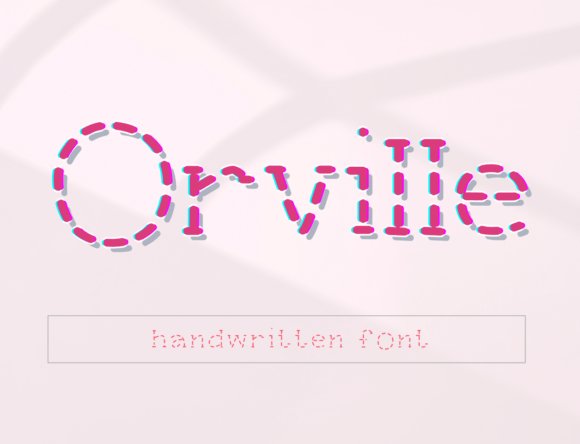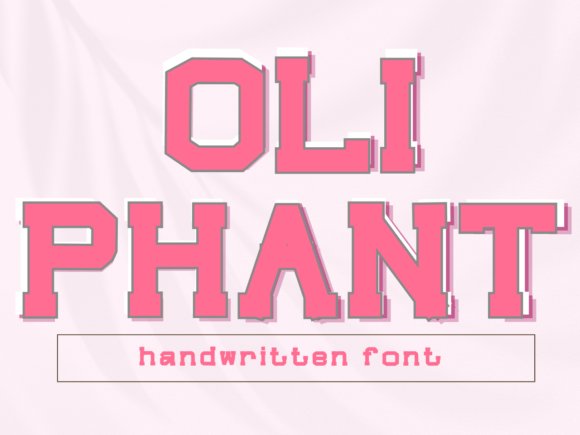
41 Essential Cricut Fonts to Elevate Handmade Gift Designs in 2026
Cricut fonts are the starting point for standout cut-file projects, and this curated collection of 41 typefaces shows which styles cut clean, weld well, and look great on finished crafts. Whether you use vinyl, paper, or heat-transfer vinyl, the right craft fonts can transform everyday ideas into polished gifts.
Inside you’ll find a mix of script, monoline, serif, and sans options plus SVG-ready letterforms and pairing suggestions to match common maker use-cases. Updated for 2026 trends, these cutting machine fonts and craft-friendly typefaces are organized to help beginners and seasoned crafters choose quickly and confidently.
1. Shortcake Font
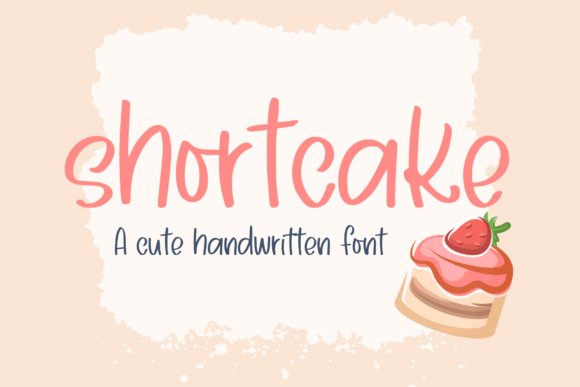
Shortcake is a delightfully bouncy handwritten script with rounded terminals and playful swashes that feel handcrafted rather than manufactured. The letterforms have gentle variation in stroke width and a casual baseline that makes headings and short quotes feel intimate and friendly; it installs easily as OTF/TTF and works well in SVG cut files for layered projects. Cricut fonts users will appreciate how the smooth joins and open counters translate to clean cuts on vinyl and iron‑on materials.
In practice Shortcake weeds cleanly and tolerates modest kerning adjustments, which speeds up production for party stationery and gift tags. It pairs beautifully with condensed sans fonts for a polished contrast, and its readable lowercase makes it suitable for small-format labels as well as larger wall decals and printable art.
My Recommendation: I’d reach for Shortcake when I want projects to feel warm and handmade-think birthday invitations, favor tags, or nursery prints. Its friendly loops cut and weed easily, saving time on vinyl and HTV projects. Use it when you want handcrafted charm without sacrificing legibility or production efficiency.
2. Hey Pumpkin Font
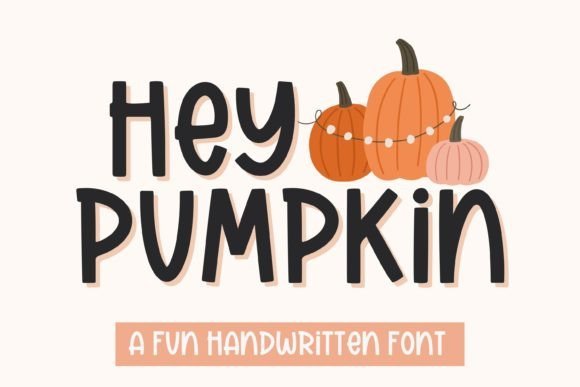
Hey Pumpkin is a fun, slightly spooky handwritten font that captures Halloween whimsy with quirky letter angles and playful irregularities. The typeface includes energetic strokes and optional swashes that add personality to party invites, banner designs, and seasonal stickers; its irregular baseline gives a DIY, storybook vibe perfect for themed crafts. Designed with cut‑file friendliness in mind, the characters simplify nicely for SVG export and vinyl cutting.
Because the letters are expressive yet not overly ornate, Hey Pumpkin works well at a range of sizes and pairs well with bold sans titles for legibility. It’s especially effective on textured paper, cardstock, and adhesive vinyl-ideal for treat bag labels, porch signs, and haunted‑house decor where a whimsical but readable script is needed.
My Recommendation: I recommend Hey Pumpkin for seasonal celebrations and playful displays-it’s great for DIY Halloween party décor and treat packaging. The font’s personality instantly sets a lighthearted spooky tone without becoming hard to read. Use it when you want your projects to feel handmade and festive, yet production‑friendly.
3. Maxwell Font
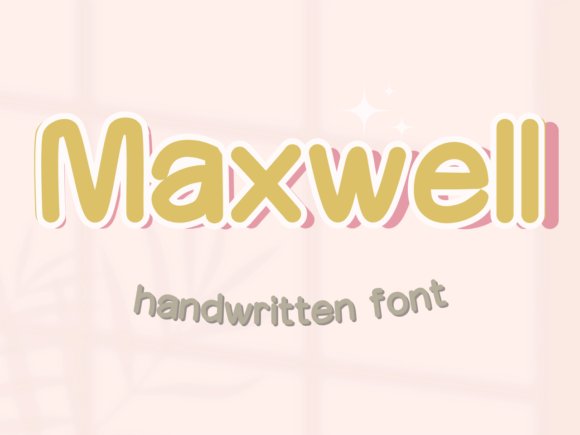
Maxwell is a clean, approachable handwritten script that balances relaxed strokes with a tidy structure, giving designs a friendly, professional look. The moderate x‑height and open counters make it legible at smaller sizes while preserving charm in larger headings, which is useful for labels, packaging mockups, and greeting cards. Its understated personality allows it to sit comfortably in both modern and rustic design schemes without dominating the composition.
Practical for everyday crafting, Maxwell adapts well to cut files and printed applications and can be combined with serif or geometric sans companions for contrast. Its straightforward rhythm means minimal kerning tweaks are required, helping speed up workflows for multi-item batches like product tags or event signage.
My Recommendation: I’d choose Maxwell when I need a versatile handwritten look that reads well across formats-perfect for product labels, stationery, and small signs. It’s reliable for multi-piece projects because it’s easy to set up and scale. Use Maxwell when you want warmth and clarity without fussy embellishments.
4. Pierce Font
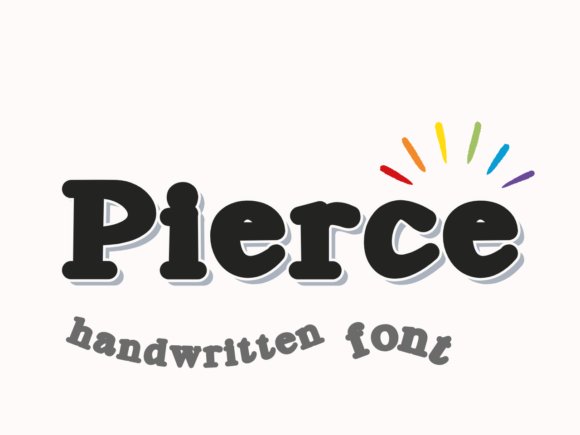
Pierce is a refined handwritten script with fluid connections and slightly condensed lowercase forms that feel both modern and intimate. Its airy ascenders and tapered terminals give designs a handcrafted, professional look, making it especially effective among Cricut fonts for personalized projects, signage, and boutique branding.
Built with a useful set of alternates and smooth ligatures, Pierce avoids fragile hairlines that can snag during vinyl cutting or heat-transfer work, so you get cleaner weeding and crisper results. Use it for medium- to large-scale text like logos, nameplates, and quote art where the personality of each letter can shine without losing readability.
My Recommendation: I recommend Pierce when you want an elegant, artisanal feel without compromising production practicality. The balanced strokes and alternates reduce headaches during cutting and weeding, so projects finish faster. I often use it for wedding signage, boutique logos, and custom drinkware because it reads beautifully while feeling handcrafted.
With these 41 selections you’ll have a dependable toolkit of typefaces for cardmaking, apparel, home décor, and personalized gifts. Test a few from different categories-script for elegance, monoline for easy weed-and-press, and bold sans for impact-to see what suits each project.